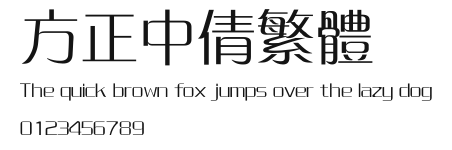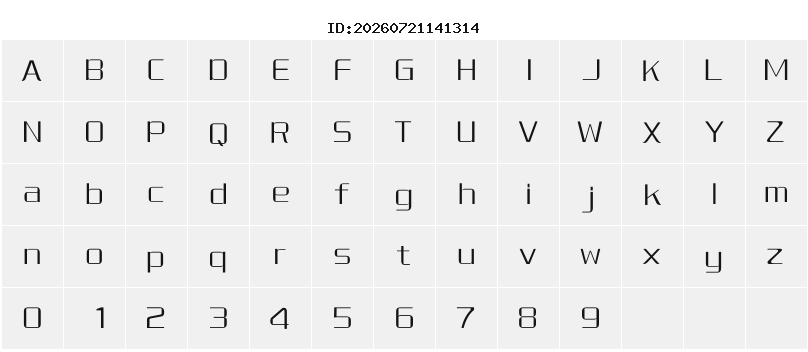
方正中倩繁体 Preview
• Font Name: 方正中倩繁体
• Font ID: Founder:方正中倩繁体 Regular
• Full Font Name: 方正中倩繁体
About 方正中倩繁体.ttf
方正中倩繁体.ttf is a modern, elegant sans-serif font designed for ultimate readability and visual harmony. Perfect for branding, headlines, web design, and print materials.